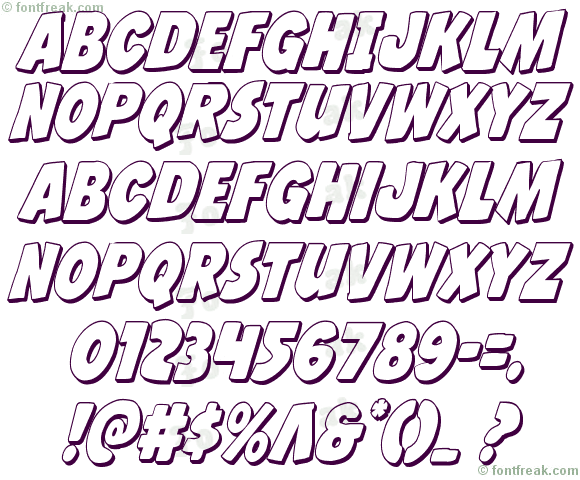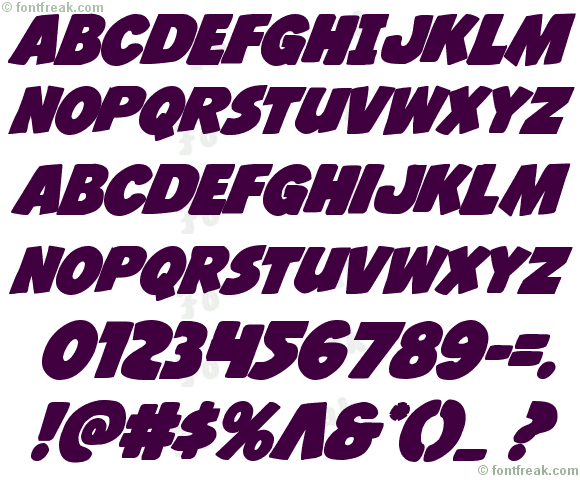
Jack's Candlestick Academy Condensed
About Jack's Candlestick Academy Condensed
Jack's Candlestick Academy Condensed is a striking display font designed by Daniel Zadorozny, categorized as a decorative typeface. This font features a unique blend of condensed letterforms that showcase bold, expressive strokes with a slight 3D effect, creating a sense of depth that captures attention. The stroke weight varies throughout, offering a dynamic aesthetic that maintains legibility even in smaller sizes. The letters exhibit a playful flair with rounded edges, giving it an inviting yet sophisticated character. The spacing between characters is tight, enhancing its compact nature while still allowing for clarity.
This font is ideal for a variety of creative applications. It shines in contexts such as movie posters, where boldness and impact are paramount, or in restaurant menus that aim to convey a sense of style and modernity. It can also be effectively used for event signage, particularly for gatherings that seek a vibrant atmosphere, such as festivals or fairs. Additionally, Jack's Candlestick Academy Condensed can elevate branding for small businesses, especially in sectors like entertainment, food, and lifestyle, where a unique visual identity is crucial.
Target audiences for this font include graphic designers looking for standout typography to enhance their projects, small business owners aiming to create memorable branding materials, and content creators who need distinctive headlines and titles that resonate with viewers.
What sets Jack's Candlestick Academy Condensed apart is its versatility combined with a distinctive visual flair, making it a perfect choice for those seeking to make a memorable impression. With the Jack's Candlestick Academy Condensed font free download, users can easily incorporate this eye-catching typeface into their design toolkit, enhancing their creative projects with a touch of personality and charm.